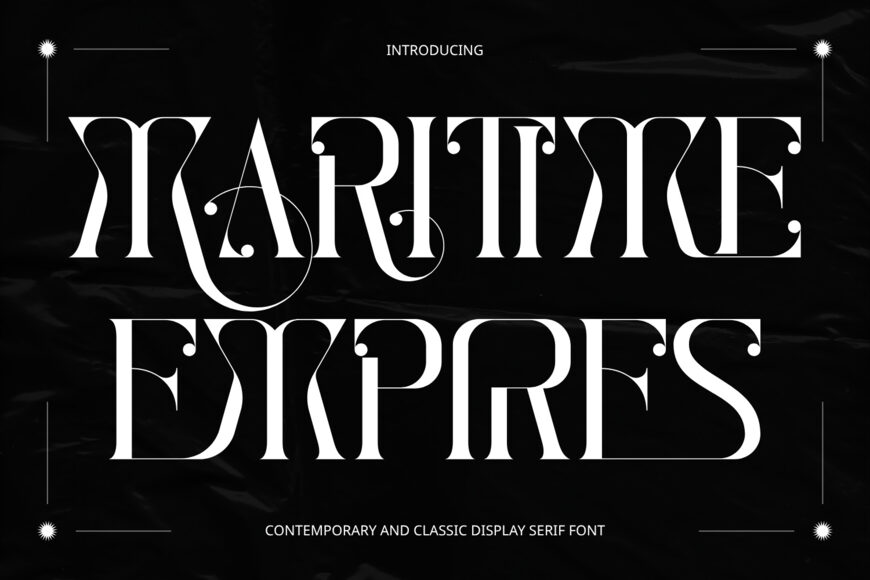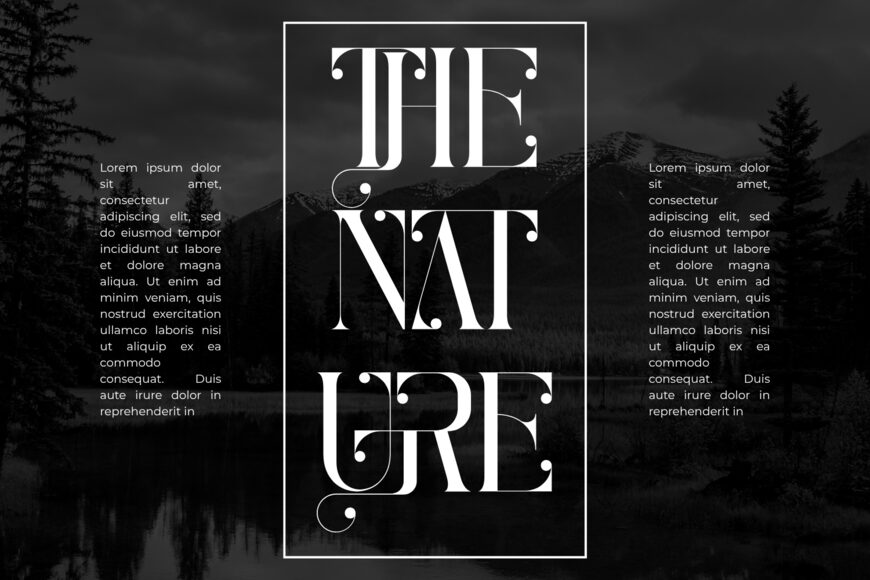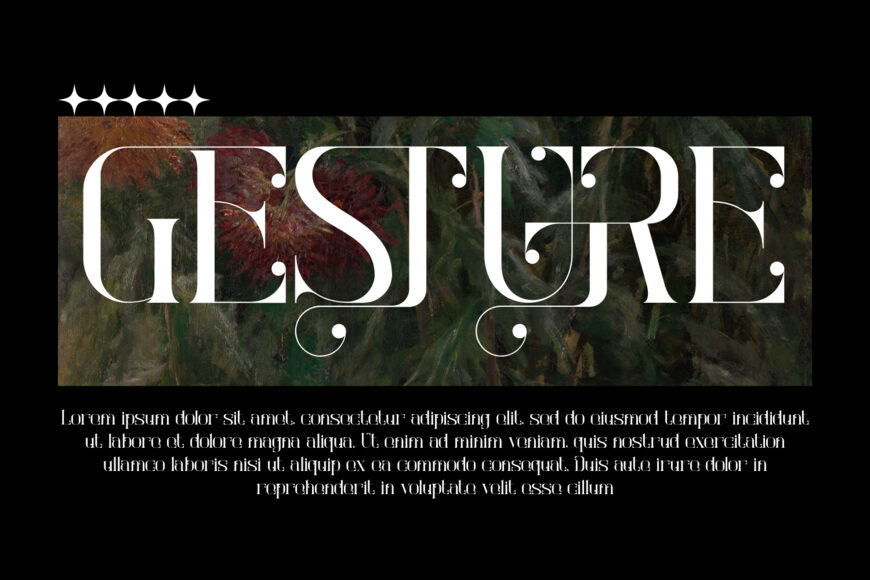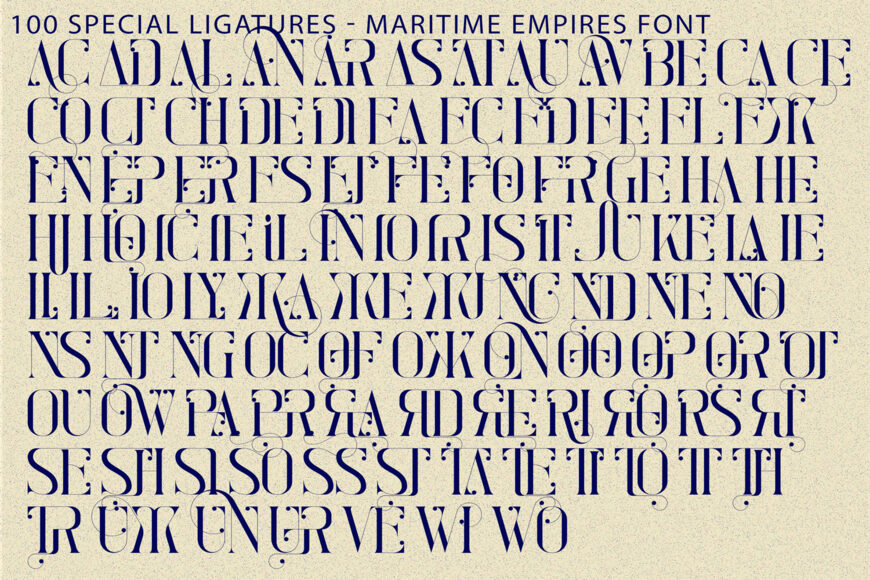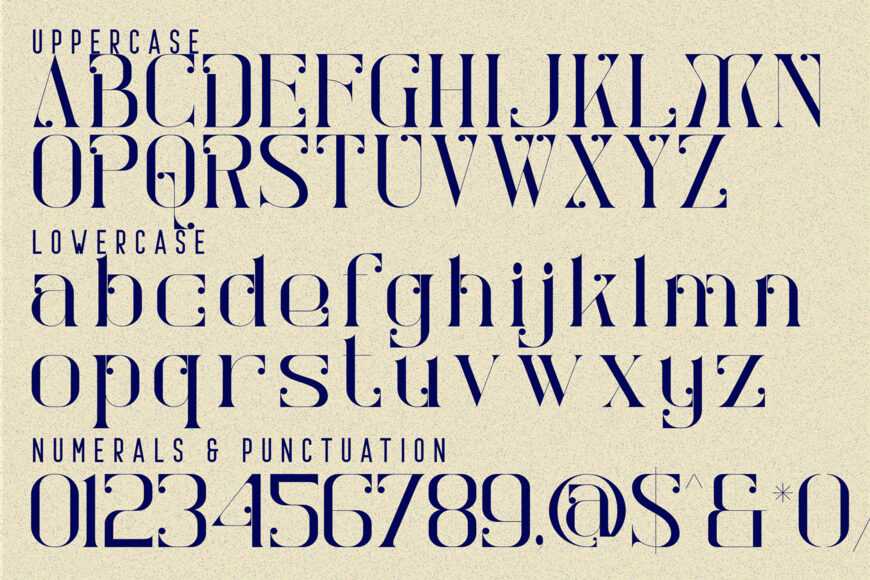
Maritime Empires is an elegant decorative display serif that combines the sophistication of classic high-contrast typography with expressive Art Nouveau-inspired details. Featuring graceful proportions, dramatic thick-to-thin transitions, sculptural curves, and refined serifs, the typeface creates a luxurious visual presence with a distinctive artistic personality.
Sweeping swashes, delicate hairlines, looping strokes, and elegant ball terminals add rhythm and ornamentation to the letterforms, transforming ordinary words into sophisticated typographic compositions. Balancing classical refinement with contemporary editorial style, Maritime Empires feels elegant, romantic, dramatic, and timeless.